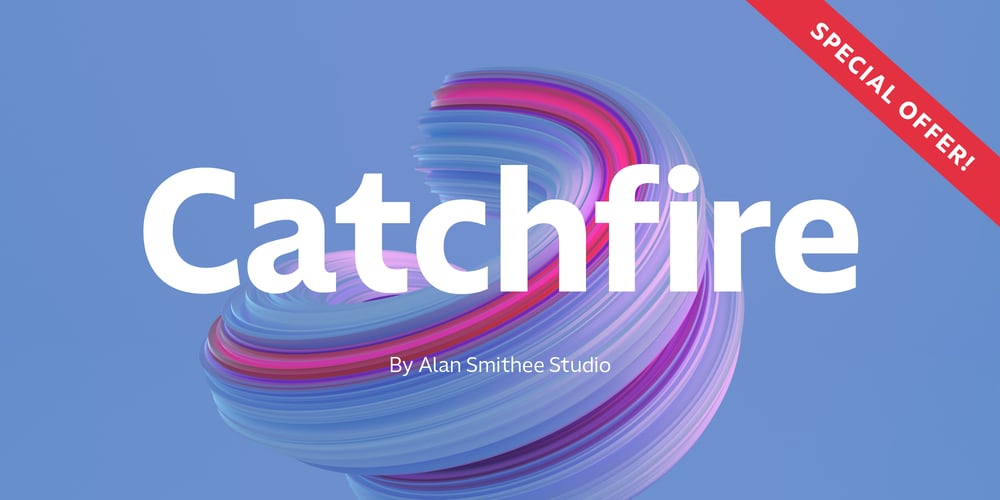
Catchfire Font Family was designed by Alan Smithee and published by Alan Smithee Studio. Catchfire contains 11 styles and family package options. Warm and human, yet reliable and precise. Catchfire blends humanist proportions and geometric features. The result is a sans serif typeface with strong personality traits, but that can fulfil everyday needs. It is very legible due to its open counters. It boasts a large character-set, OpenType features, circled numbers, wide range of weights, cursive italics : everything needed to become your new companion for years to come!